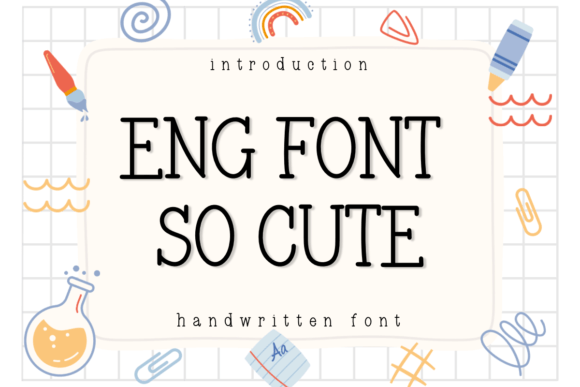
Eng Font so Cute Font
Eng Font So Cute is a charming handwritten serif font with a playful and sweet design. Its letters are soft and rounded, making it perfect for adding a friendly and cozy feel to your projects. This font works well for invitations, greeting cards, or any design that needs a touch of cuteness.